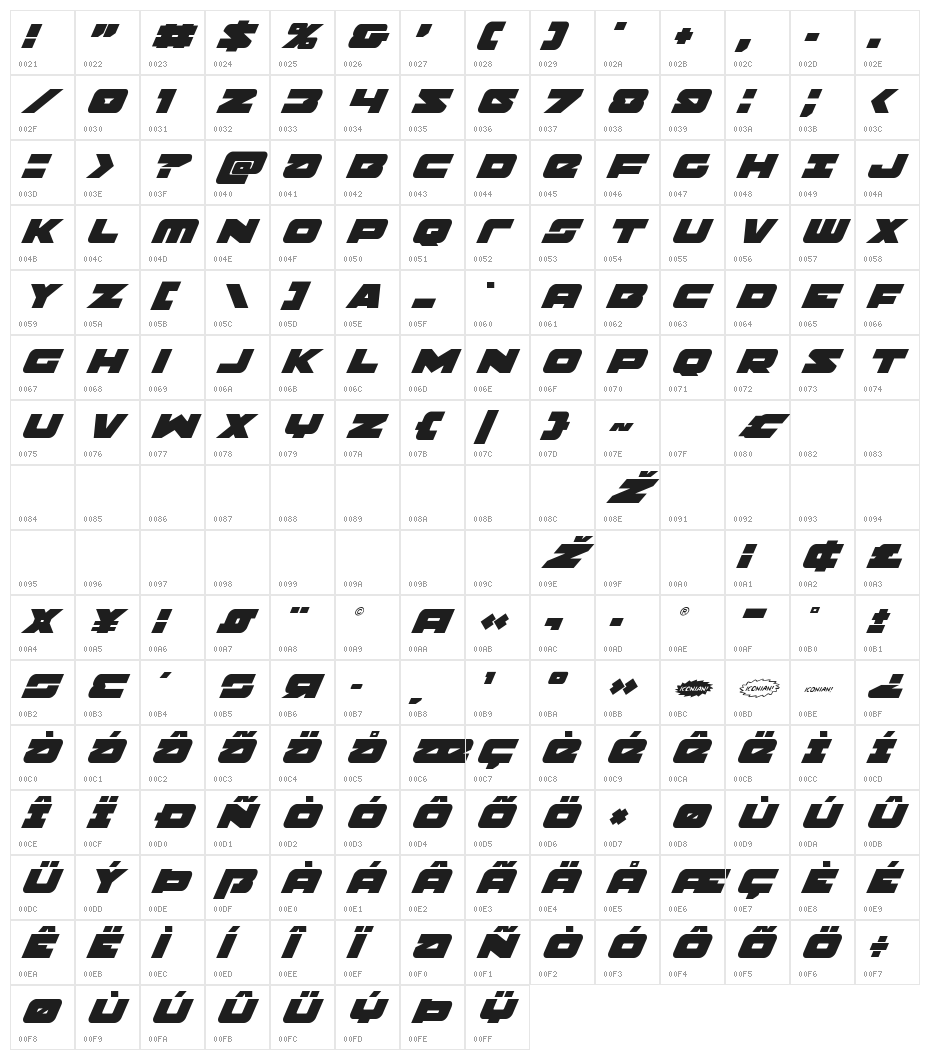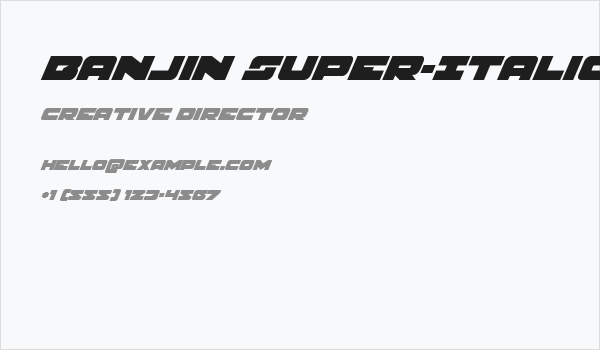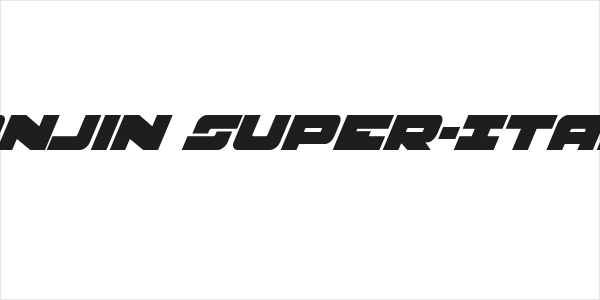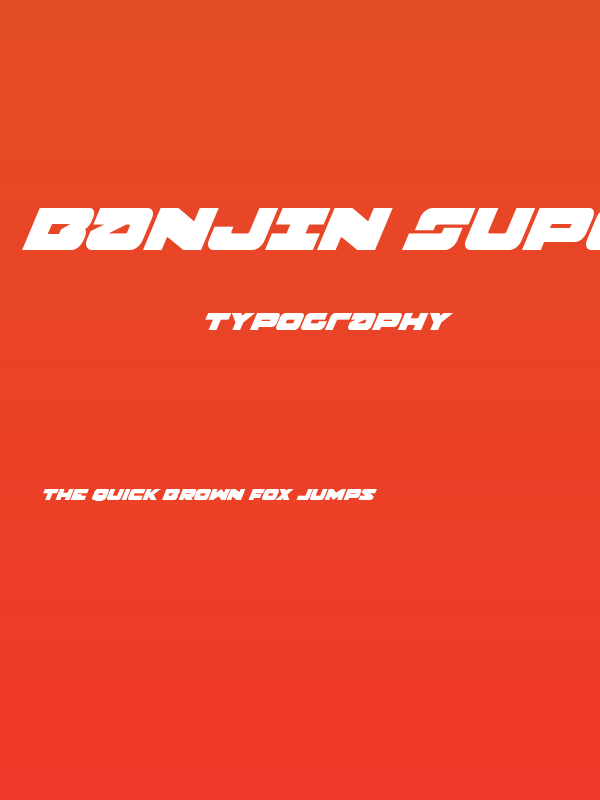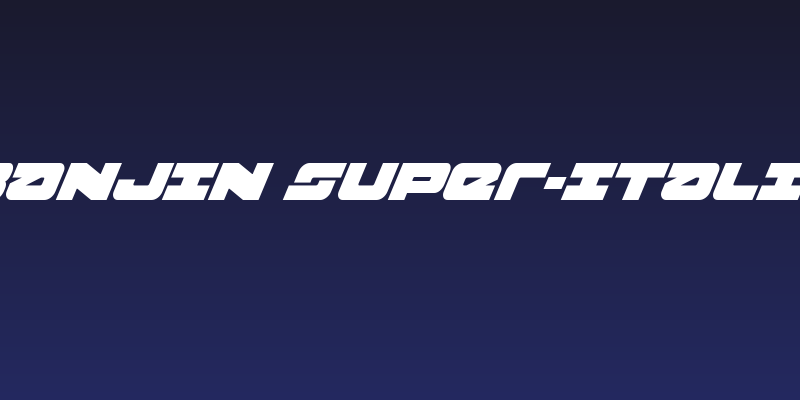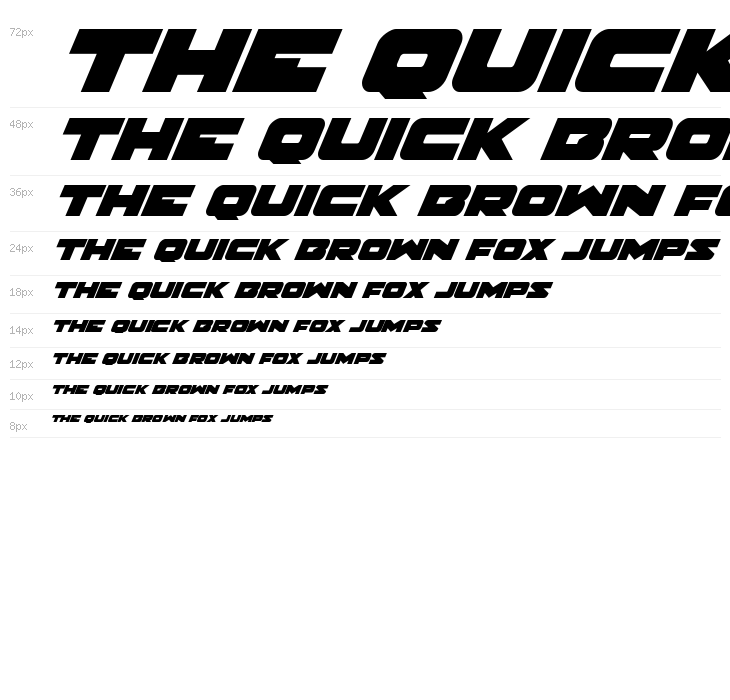
Banjin Super-Italic Font
Banjin Super-Italic Description
This font features a bold and dynamic style with a strong italic slant, giving it a sense of motion and energy. The characters are wide and have a futuristic, angular design, making them stand out prominently. The uppercase and lowercase letters maintain a consistent style, with sharp edges and a geometric structure. Numbers and special characters follow the same bold and angular aesthetic, ensuring uniformity across all glyphs. This font is ideal for projects that require a modern and impactful look.
| Proposed Projects | Ideal for branding, sports team logos, video game titles, and sci-fi themed projects. |